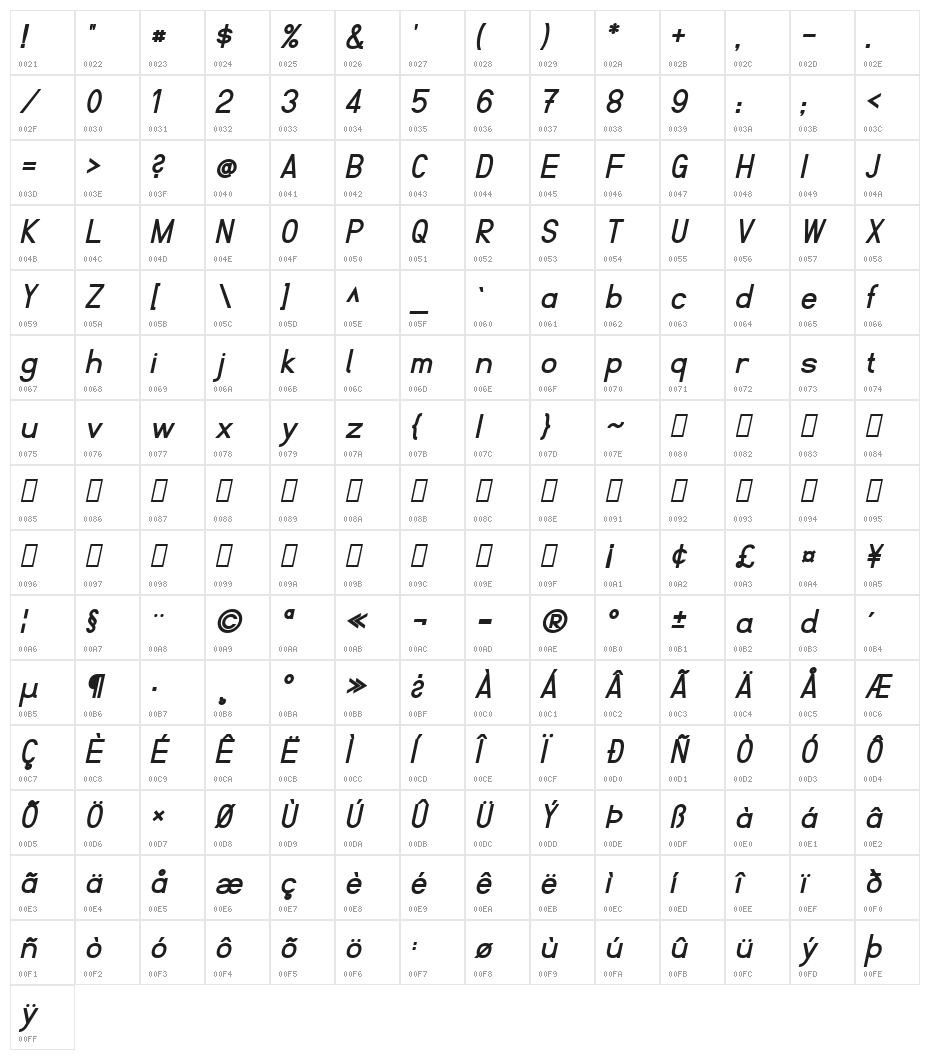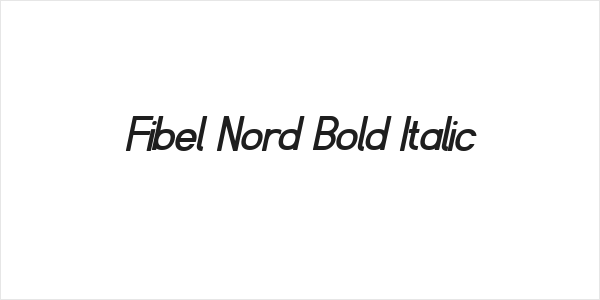
Fibel Nord Bold Italic Font
Fibel Nord Bold Italic Description
This font features a bold and italicized style, characterized by its slanted and dynamic appearance. The letters are well-defined with a consistent stroke width, giving it a modern and sleek look. The uppercase and lowercase letters maintain a uniform height, contributing to its readability. The numerals are clear and distinct, matching the overall style of the alphabet. Special characters are included, providing versatility for various uses. The design is clean and professional, suitable for both digital and print media.